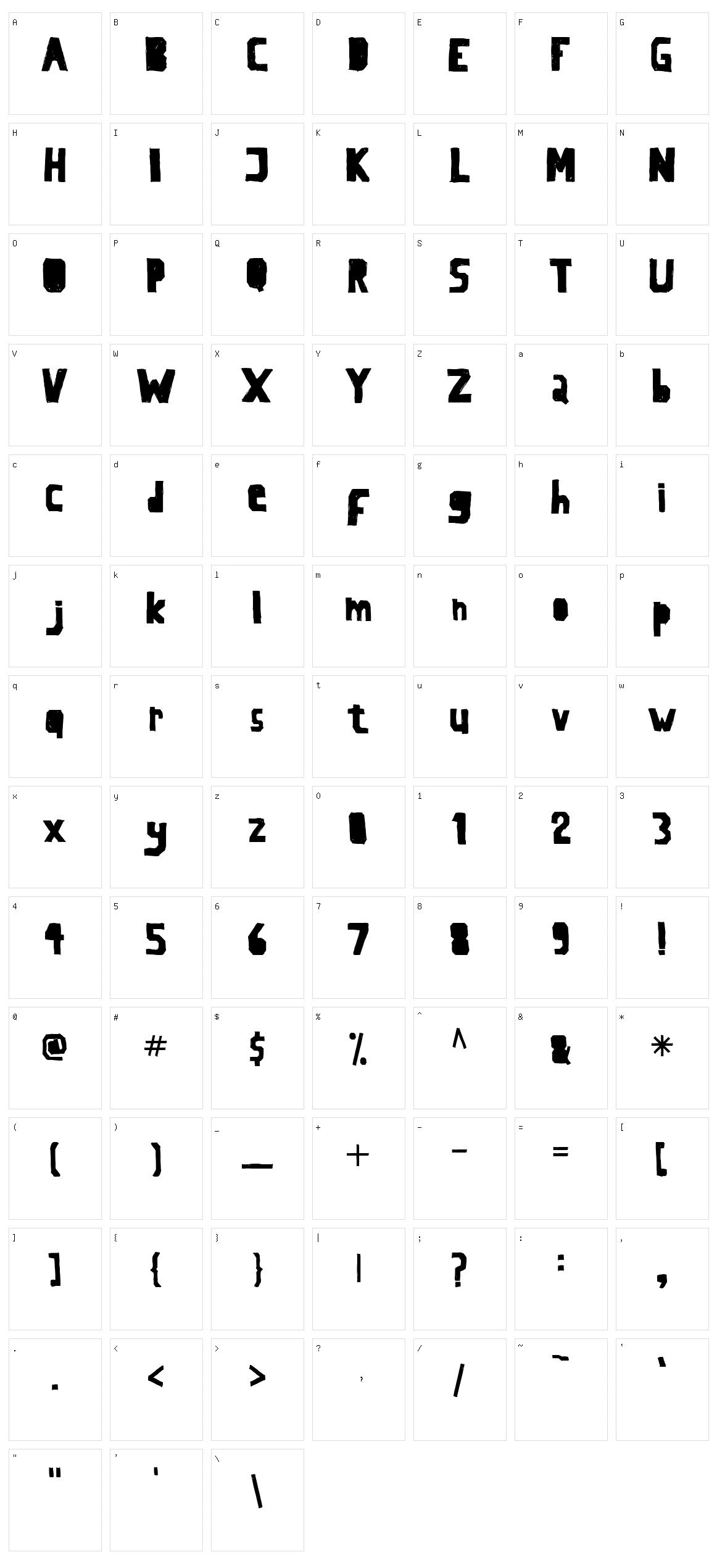
This typeface was fully designed by Matias Demti for free personal use. Most of the characters are included. All basic characters are included.
Esta tipografia fue diseñada integralmente por Matias Demti para uso personal libre. Se incluyen la mayoria de los caracteres. Todos los caracteres basicos estan incluidos.